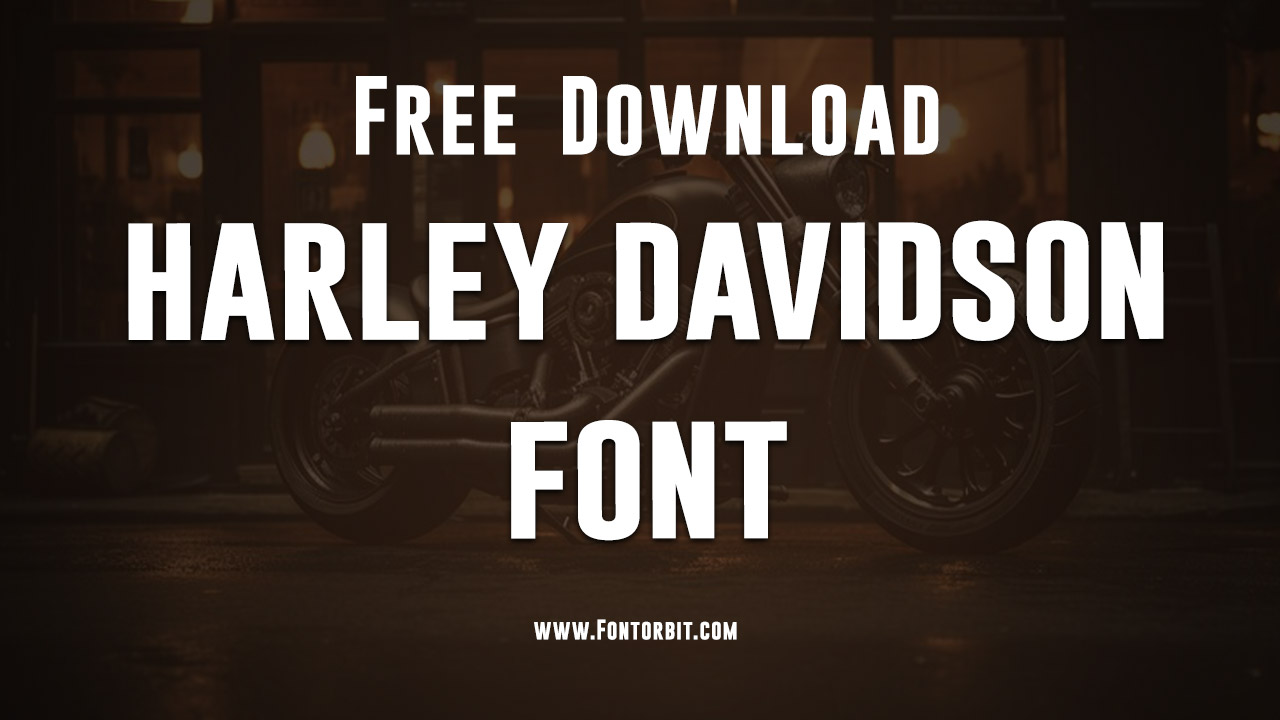
The font used in the Harley Davidson logo is Block Gothic RR Bold ExtraCond, created by the Red Rooster Collection. Originally designed by Frederic Goudy in the early 20th century, Block Gothic is a sans-serif typeface known for its bold, block-like letterforms, making it ideal for display and branding applications.
Harley Davidson Font Font Family Includes
The Harley-Davidson font family is a powerful set of typefaces characterized by its heavy, condensed look and sharp edges. The font’s distinct style reflects the boldness associated with the Harley-Davidson brand, making it instantly recognizable in the motorcycling world.
- Compacta
- CompactaBT
Notable Uses of Harley-Davidson Font
The Harley-Davidson font has been widely used in both official branding and consumer products. Its application goes beyond the Harley-Davidson logo, finding use in advertisements, promotional materials, and merchandise.
- Harley-Davidson’s official logo and branding
- Motorcycle decals and custom parts
- Merchandise such as T-shirts, caps, and jackets
- Harley-Davidson events and rallies
- Custom motorcycle art and posters
This font is perfect for projects that need a bold and adventurous style. Use it in contexts that demand an edge of ruggedness or reflect a strong, rebellious image. The Harley-Davidson font is ideal for:
- Automotive branding or marketing materials
- Event posters or motorcycle rally advertisements
- Custom bike decals or vehicle wraps
- Merchandise such as apparel or accessories with a tough, vintage feel
The Harley-Davidson font is a staple in motorcycle branding, embodying the essence of freedom and strength. Whether you’re designing for a motorcycling event, creating bold apparel, or simply wanting to capture that rugged Harley spirit, this font family provides the perfect touch.
2.Is The Harley-Davidson Font Good For Logos?
Yes, it’s excellent for logos due to its bold, impactful style.
3.What Style Is The Harley-Davidson Font?
It belongs to the Gothic, bold, and condensed styles, giving it a strong presence.